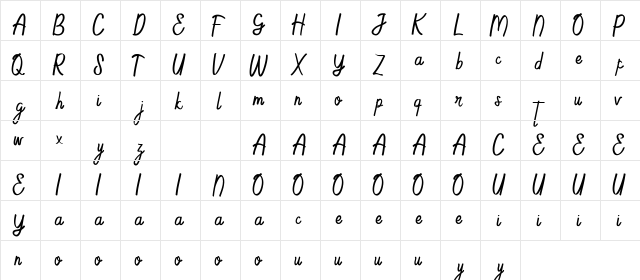
Chameetademo Regular
| Foundry | Edric Studio |
| Designer | Renata |
Design Context for Chameetademo Typeface
Chameetademo is a composed and adaptable typeface that performs quietly and consistently across a wide range of design contexts.